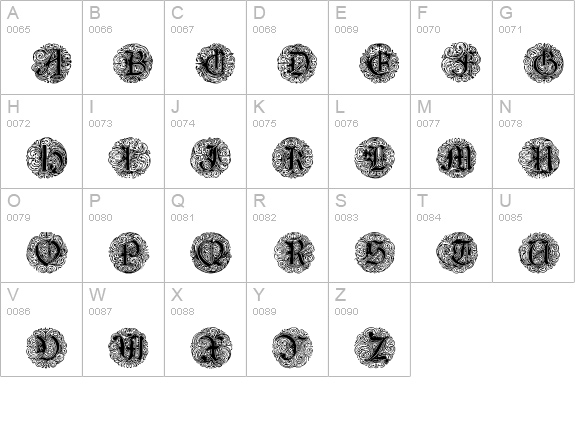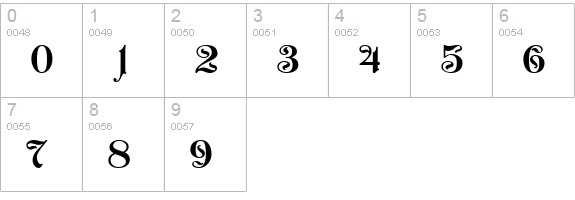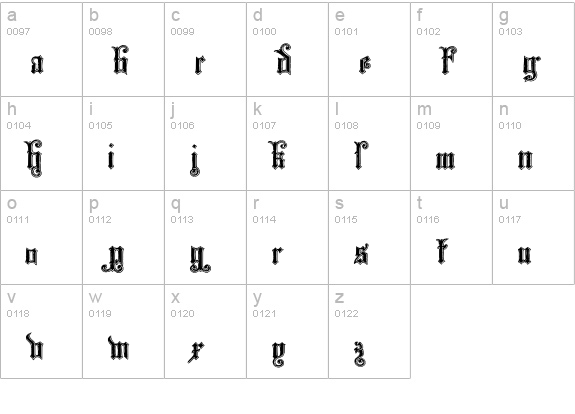
Monarchia Font Details
Monarchia font is a stunning display typeface that exudes elegance and sophistication. Its intricate details and graceful curves make it a perfect choice for projects that require a touch of regality and charm. The Monarchia font features a timeless appeal that can elevate any design, whether it's for branding, invitations, or editorial layouts. This versatile font is free to download at FontsMarket.com, where you can access its full range of uppercase and lowercase letters, numerals, and special characters. With its seamless connectivity and impeccable design, Monarchia font is sure to make a statement and leave a lasting impression on your audience. Embrace the beauty and grandeur of Monarchia font in your next creative endeavor.